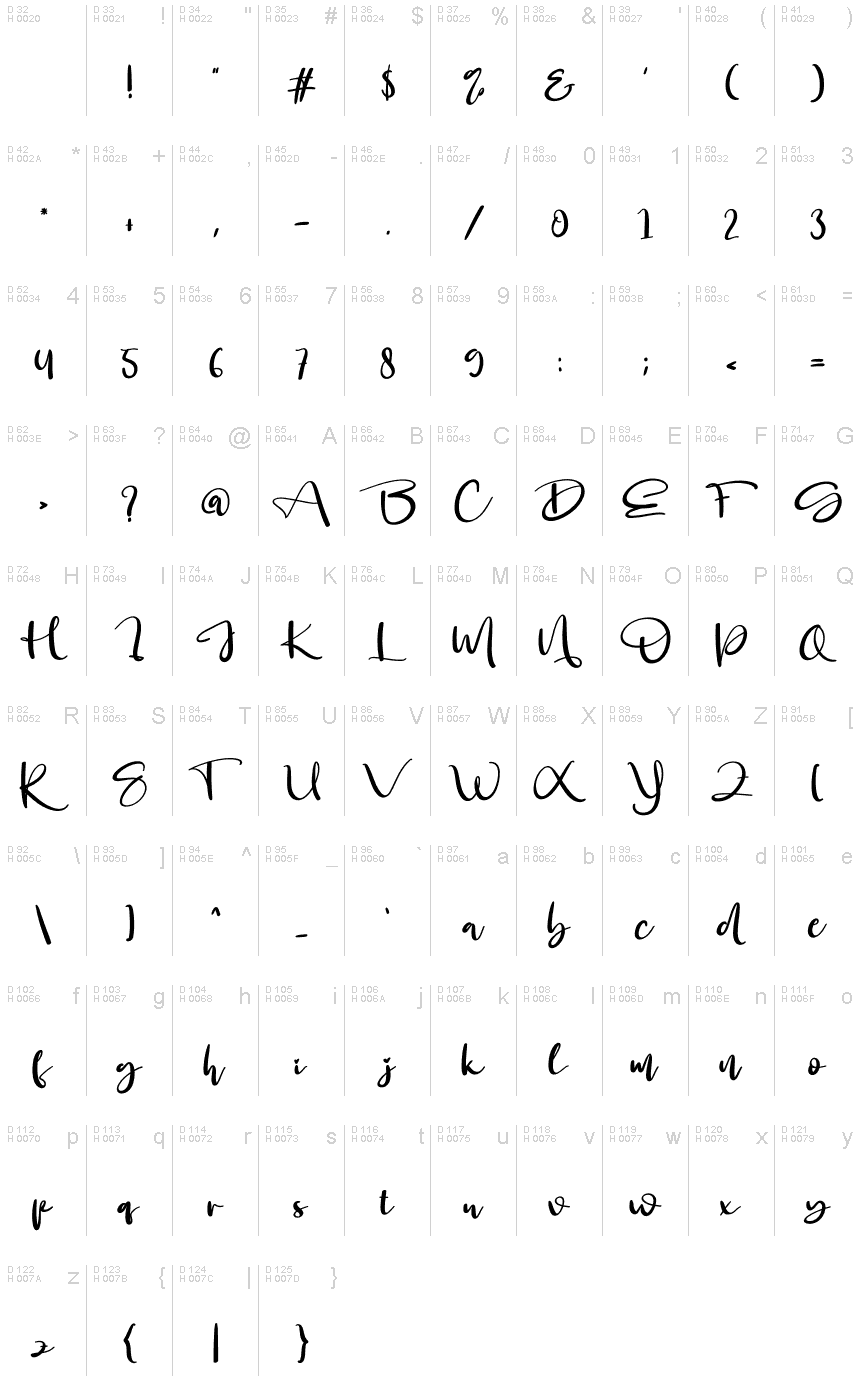
Side
Side, a modern handwritten font by Scratchones, brings a touch of elegance and sophistication to any project.
With its semi-light weight, it is perfect for adding a subtle yet stylish flair to invitations, wedding stationery, and greeting cards. Its flowing lines and graceful curves also make it an excellent choice for fashion magazines or beauty blogs seeking a chic and contemporary look. Additionally, Side's modern handwritten style makes it an ideal pick for branding projects that aim to establish a friendly and approachable image.